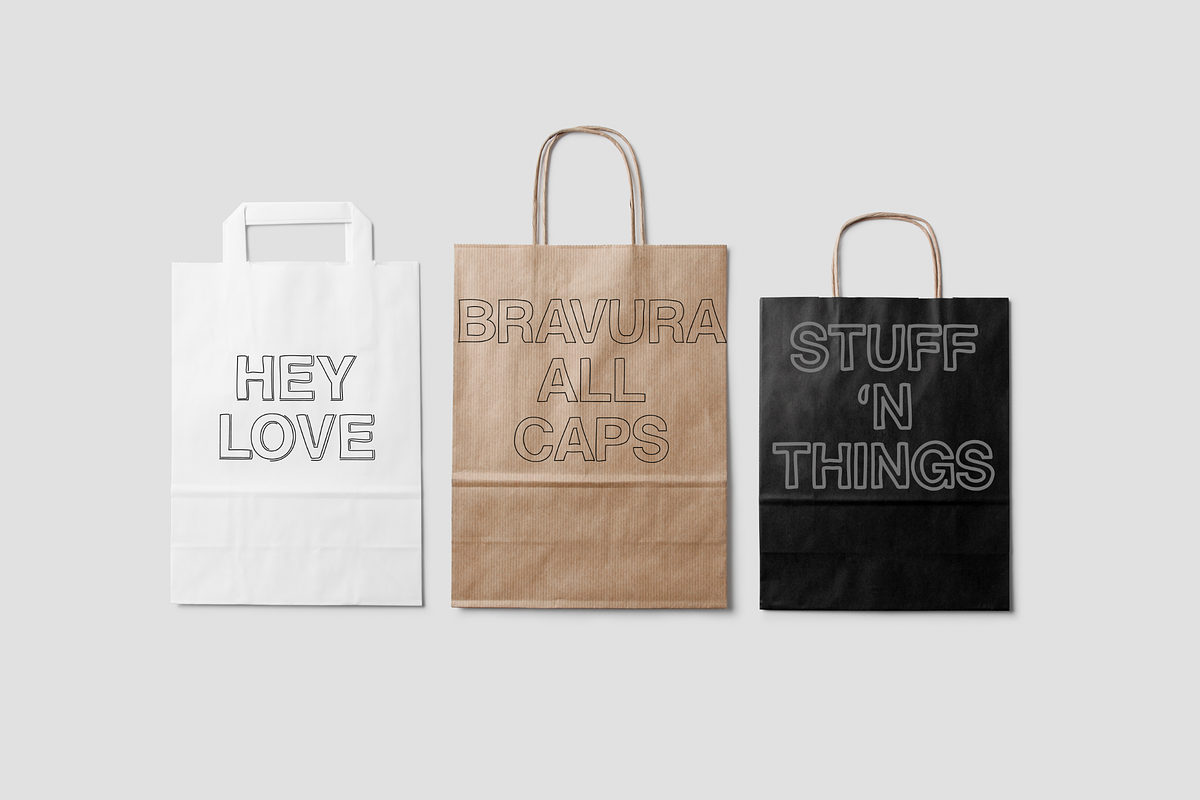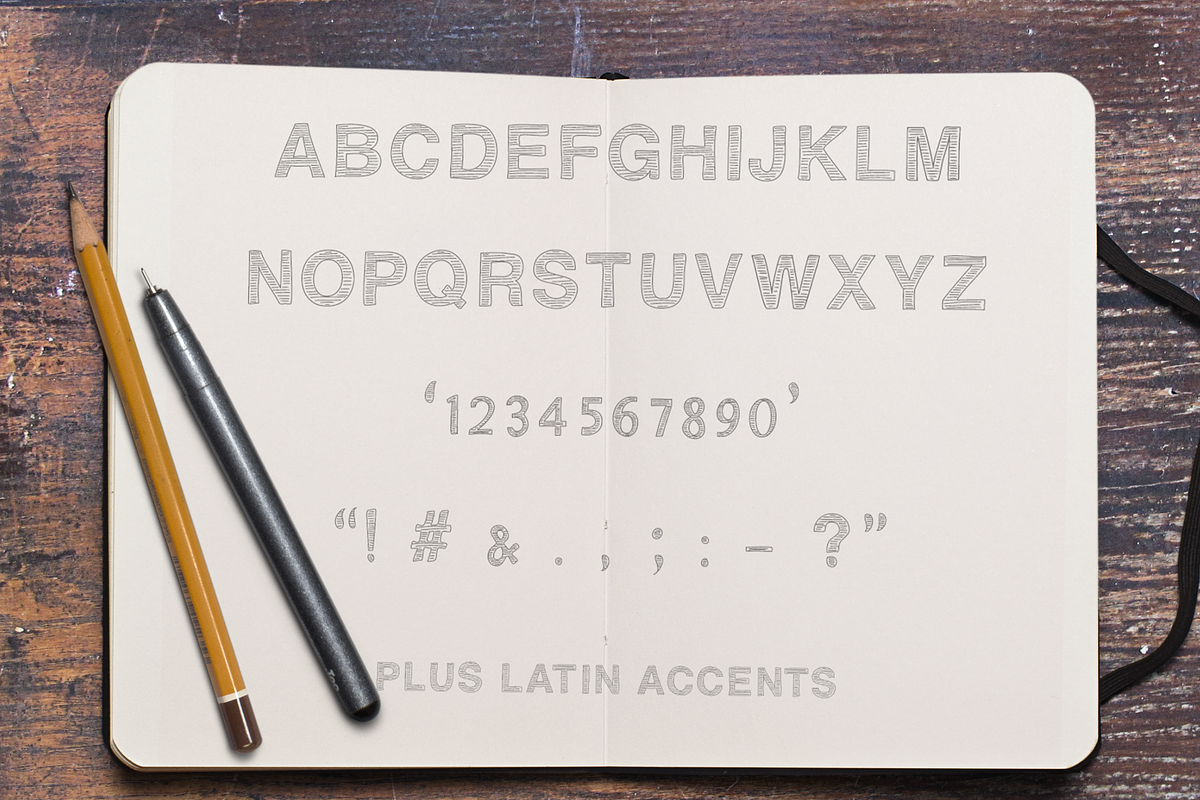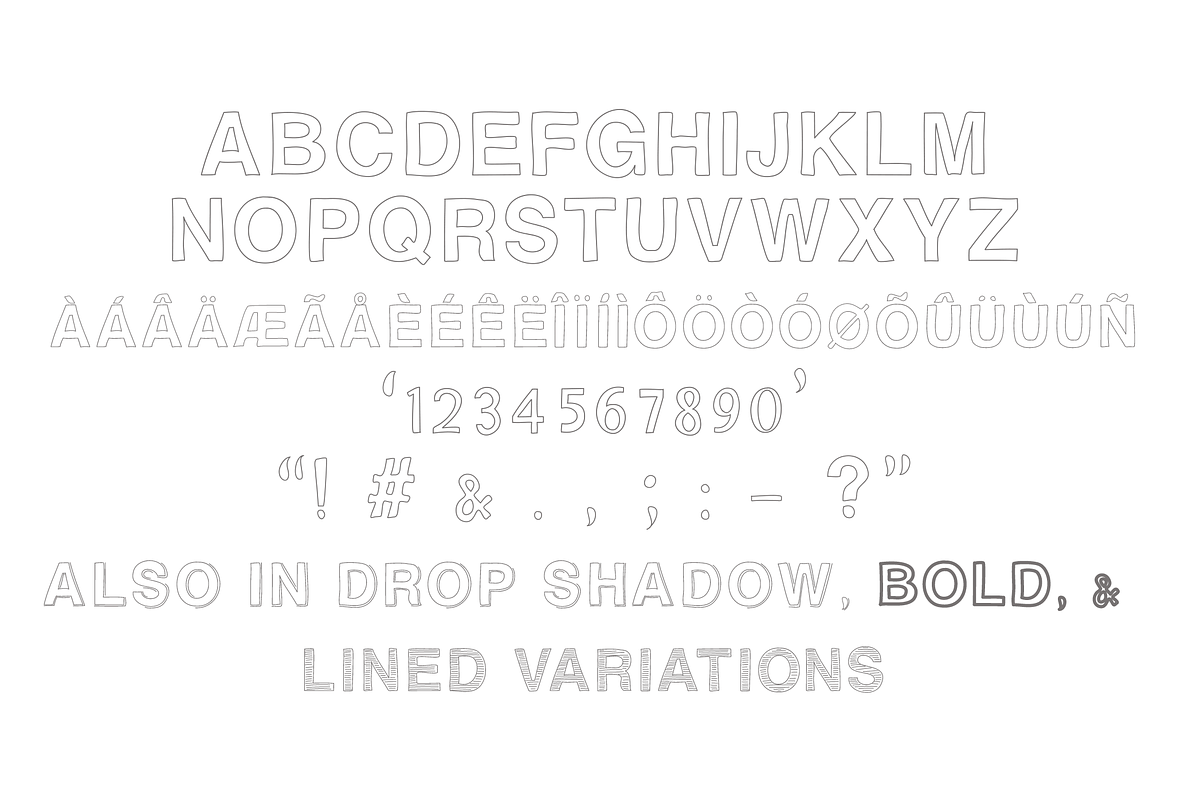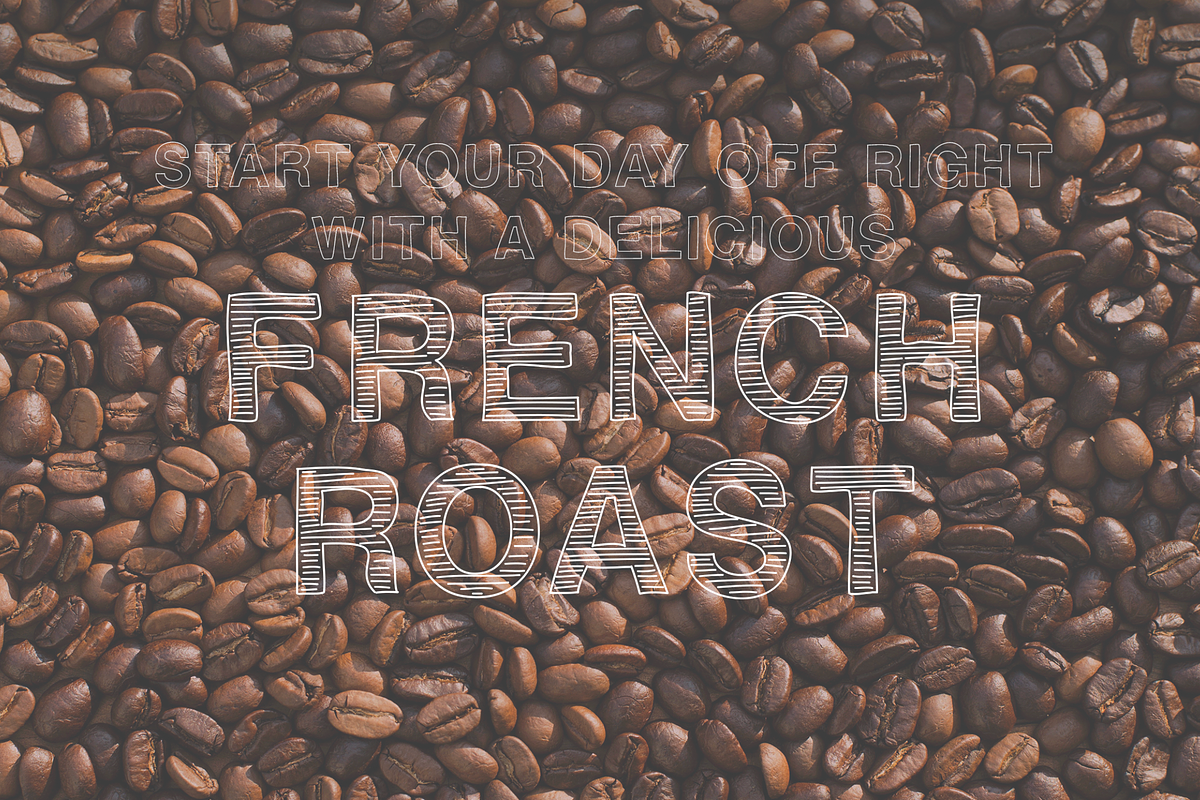
BRAVURA - Hand-Drawn All Caps Font
The product contains four variations:
- BRAVURA is an all caps font and includes latin accented letters, numbers, and a selection of symbols.
- The product contains four variations: All Caps Drop Shadow Bold Lined Can be used for personal and professional projects (extended license,